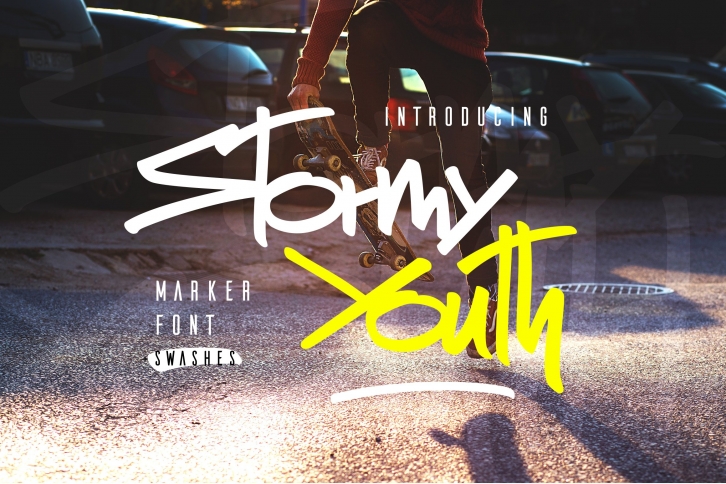
I'm happy to present my Stormy Youth font. It has been drawn with a marker pen and a swift hand. Stormy Youth has intentionally overlapping letters to remind street style and give an underground look. Initially, I planned to make it as only uppercase, so feel free to use it this way. Stormy Youth is great for an aggressive/rebel design style for teenagers.
Stormy Youth Features:
Can be used as an uppercase script font
Set of alternates and ligatures for most popular double letters
Carefully tuned kerning
Swashes